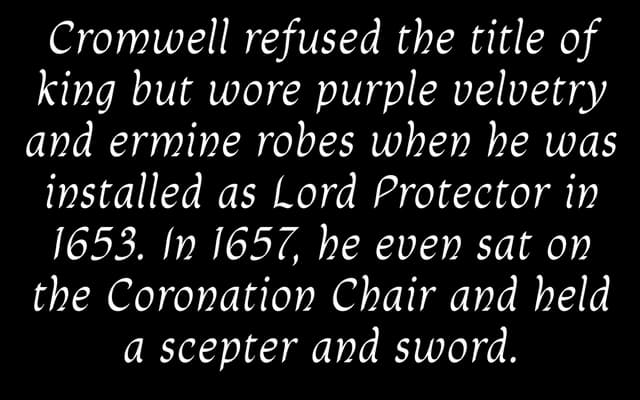
Corfe Italic
An italic serif sold as a standalone cut, paired with a separate regular weight, priced accessibly for independent and small-studio use.
Corfe Italic is offered as an individual purchase alongside its upright companion, suggesting a family designed with text setting in mind rather than display work. The specimen leans on a warm, literary narrative set in rural Dorset, evoking the stone and countryside of the Purbeck Hills the name references. Webfont use is included in the licence, and pricing scales across user tiers from single to ten-plus seats.
The italic cut and the literary, unhurried tone of the specimen suggest a classical serif tradition; the companion 'regular' implies a text-oriented family designed for sustained reading.